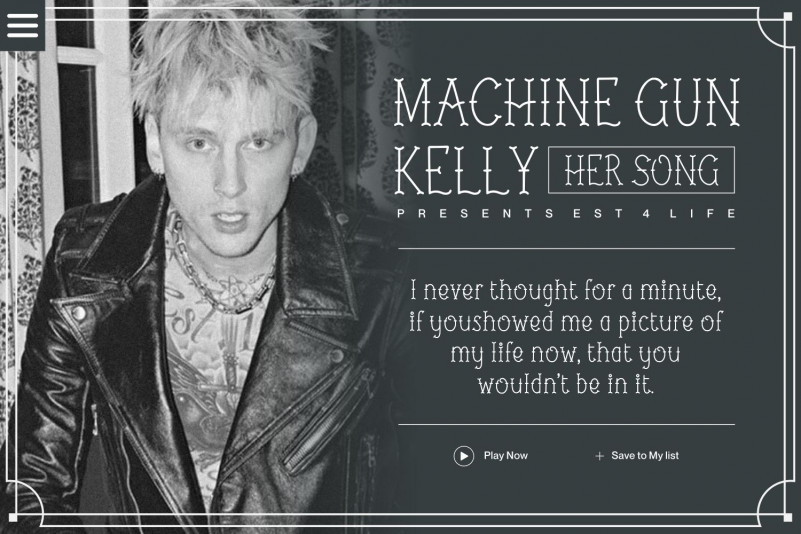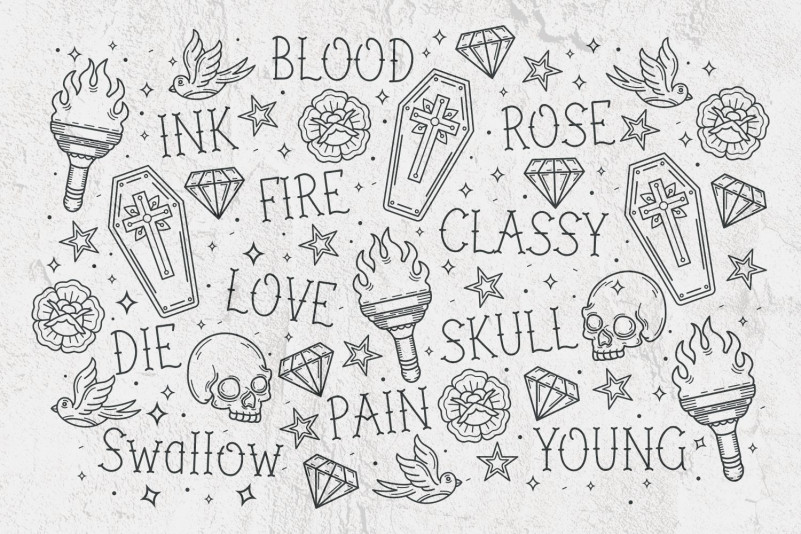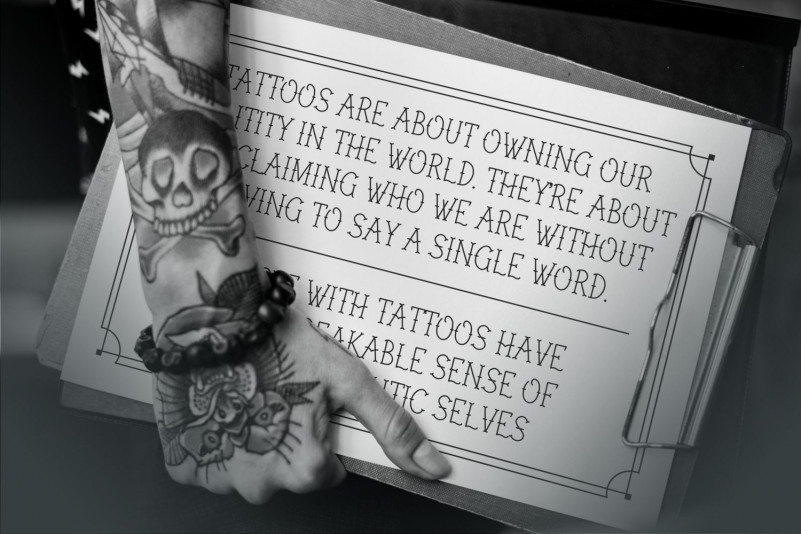
Her Song Font
Her Song Display Font
This is a Oldschool Handmade Tattoo Font. Her Song is perfect for product packaging, branding project, megazine, social media, wedding, or just used to express words above the background.